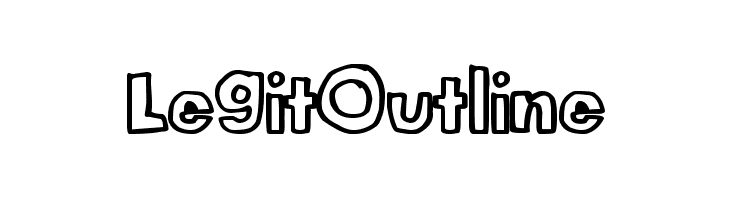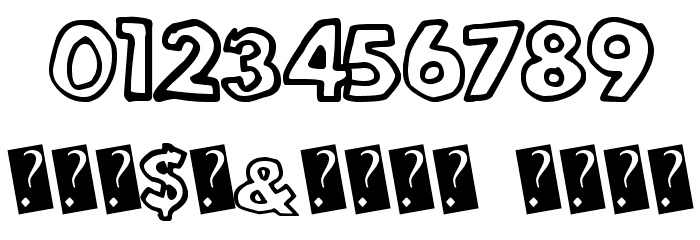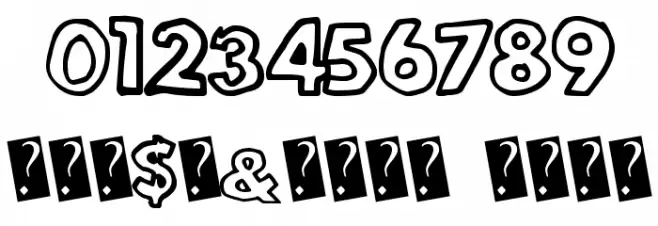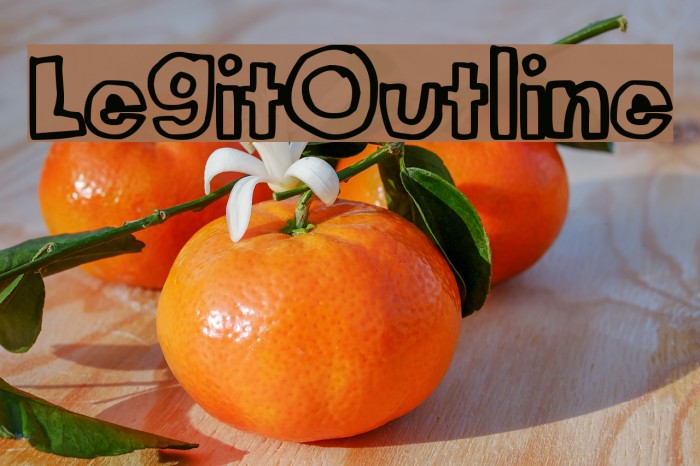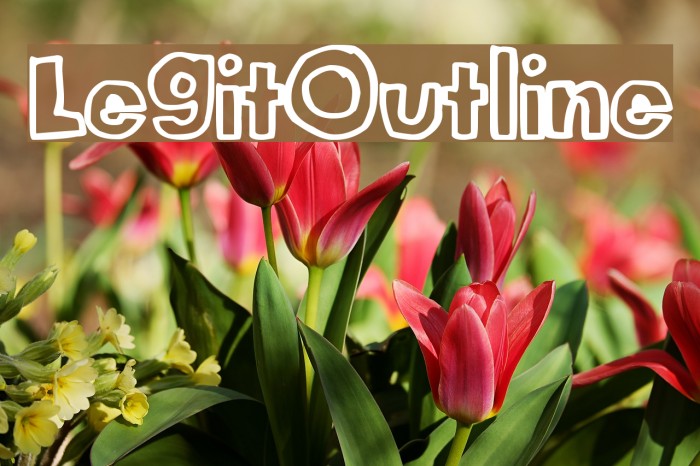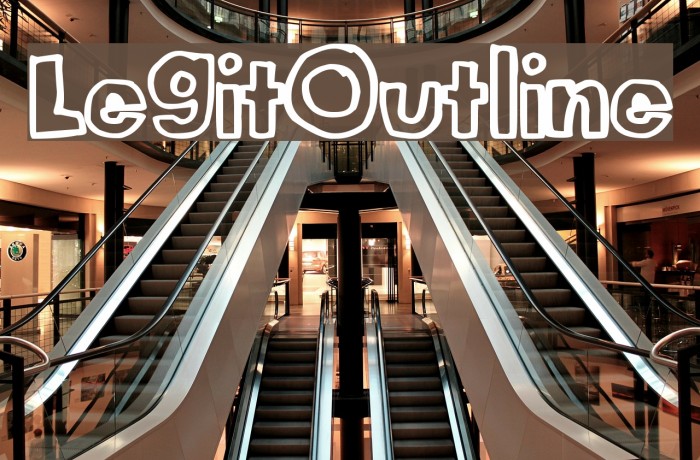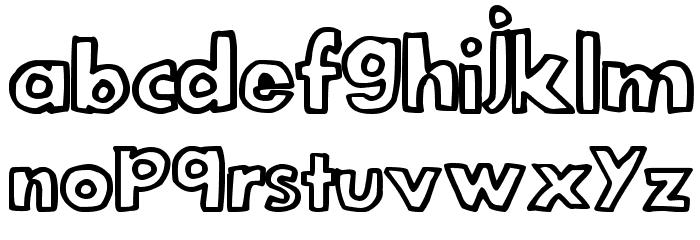
LegitOutline Font
LegitOutline Description
This playful and bold font features a unique outline style that gives each character a distinct, hand-drawn appearance. The uppercase and lowercase letters maintain a consistent thickness, creating a cohesive look across the alphabet. The numbers and special characters follow the same design principles, ensuring uniformity throughout. The font's whimsical nature makes it ideal for projects that require a fun and engaging aesthetic. Its bold outlines make it highly legible, even at smaller sizes, while the quirky design adds a touch of personality to any text.
A playful, bold outline font with a hand-drawn aesthetic from Cartoon fonts.
- Proposed Projects: Ideal for children's books, comic strips, playful branding, and creative posters.
- Overall Style: Playful, Whimsical